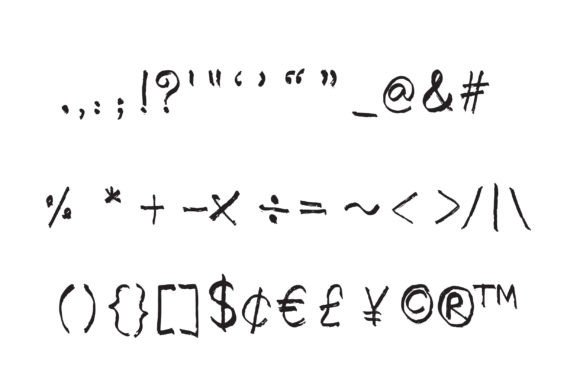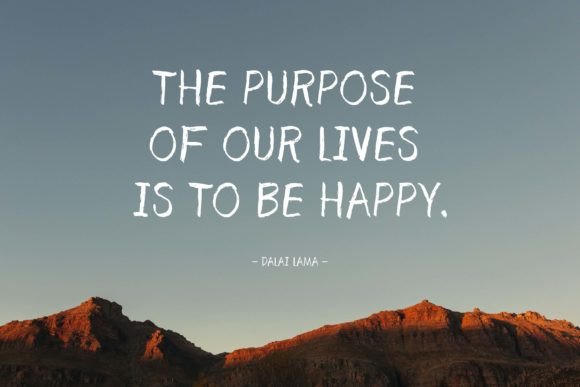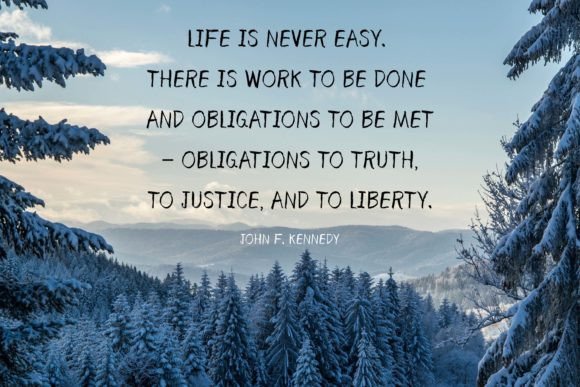
The Doodii Font: A Playful Companion for Your Creative Projects
I still remember the time I was working on a project for a client who needed a fun and quirky font for their greeting card design. I had spent hours browsing through font libraries, but nothing seemed quite right. That’s when I stumbled upon the Doodii font, and it instantly clicked. The handwritten charm and playful vibe of this font were exactly what I needed to bring my client’s vision to life.
An Honest Review of Doodii Font
What I Love About Doodii Font
- ✨ Handwritten charm: Doodii font has a unique, handcrafted feel that adds a personal touch to any design.
- ✅ Versatility: This font is perfect for a wide range of projects, from funny greeting cards and posters to social media graphics and quotes on products like mugs or shirts.
- 💬 Easy to read: Despite its playful nature, Doodii font is surprisingly easy to read, making it a great choice for designs that need to convey a message.
While Doodii font is an excellent choice for many projects, there are a few things to keep in mind:
- 🤔 Limited formal use: Due to its playful nature, Doodii font may not be the best choice for formal or professional projects that require a more serious tone.
- ⚠️ Overuse: As with any font, using Doodii font excessively can make your design look cluttered and overwhelming.
The Designer Inspiration Behind Doodii Font
The Doodii font was created with the intention of capturing the playful and creative spirit of handwritten typography. The designer behind Doodii font wanted to create a font that would be perfect for designs that need a personal touch, such as greeting cards, posters, and social media graphics.
| Font Name | Doodii Font |
| Author | Simple Font |
Q: What is the best way to use Doodii font?
A: The best way to use Doodii font is to experiment with different OpenType features, glyphs, and stylistic alternates to add more personality to your design.
Q: Is Doodii font easy to read?
A: Yes, despite its playful nature, Doodii font is surprisingly easy to read, making it a great choice for designs that need to convey a message.